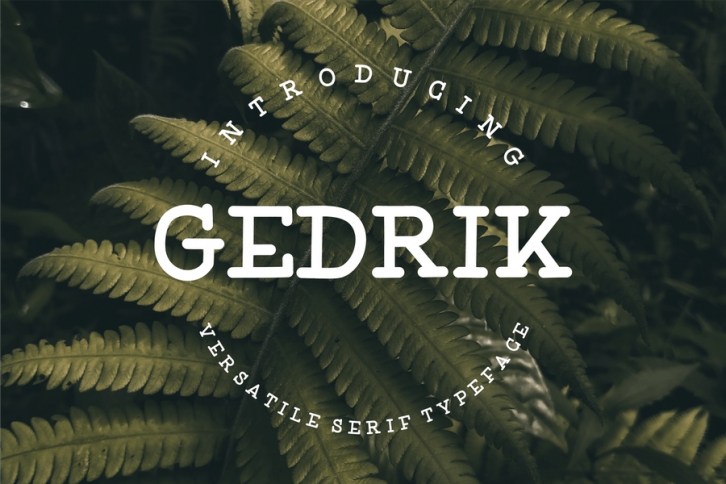
Gedrik Serif Typeface FONT Download
Gedrik is Serif Font and also has vintage display font. Use for awesome display, labeling, clothing, movie sceen, poster, movie title, gigs, album covers, logos, and much more. download and enjoy!